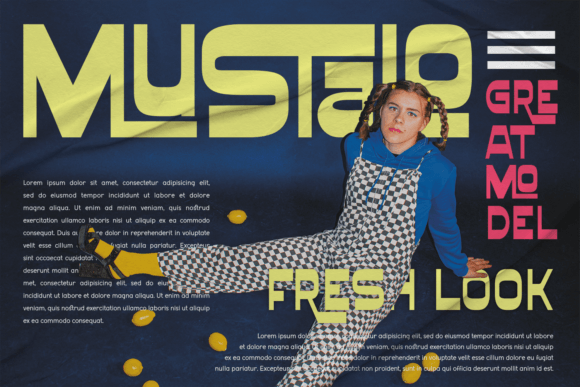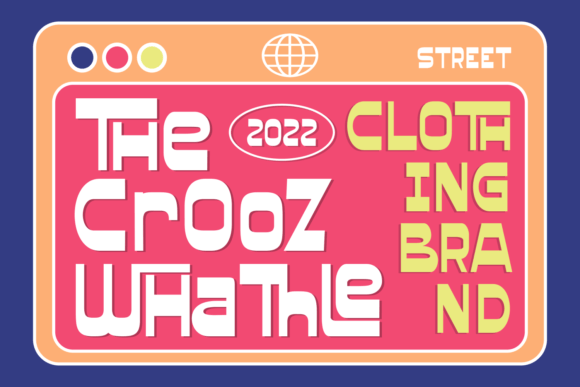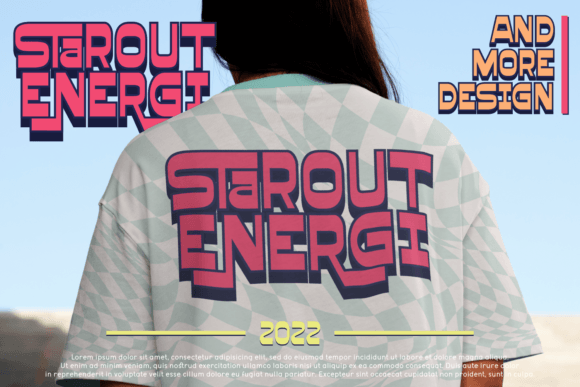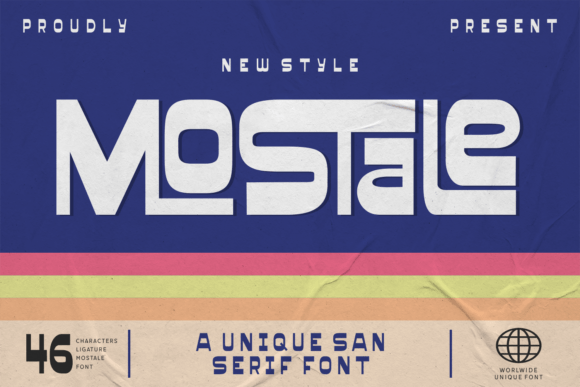
Introduction to Mostale Font
Mostale is a unique sans serif display font.
This font will make a wonderful new addition to your font library Use its modern and fresh-looking features to design the coolest posters, quotes, branding projects, planners, stickers, and many more.
Key Features of Mostale Font